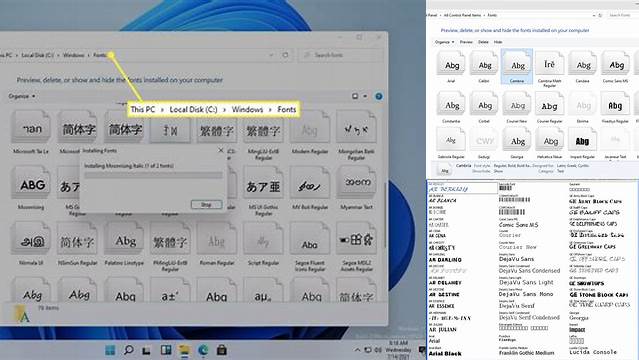
Download Fonts For Windows: The Ultimate Guide
Windows fonts download are essential for anyone looking to personalize their computing experience or ensure compatibility across different documents and platforms. Fonts play a crucial role in the visual appeal and readability of text, making them a fundamental element of graphic design and document creation. In this comprehensive guide, we'll explore everything you need to know about downloading and managing fonts on Windows, from understanding font types to troubleshooting common issues. Guys, whether you're a seasoned designer or just someone who wants to spice up their documents, this guide has got you covered. We will dive deep into the world of fonts, making sure you have all the knowledge you need to find, install, and use the perfect fonts for your needs. This includes a detailed look at where to find reputable font sources, how to install fonts correctly, and even some tips on font management to keep your system running smoothly. So, buckle up and get ready to transform your text from bland to grand!
Fonts, in essence, are the visual representation of text. They determine the style and form of characters, influencing how we perceive written communication. Different fonts evoke different feelings and can significantly impact the overall aesthetic of a document or design. For instance, a formal document might benefit from a classic serif font like Times New Roman, while a creative project could utilize a more modern sans-serif font like Arial or a decorative script font. The right font can enhance readability, convey the intended message, and make your work stand out. However, managing fonts effectively is key to a seamless user experience. Downloading fonts from untrusted sources can expose your system to security risks, and installing too many fonts can slow down your computer. Therefore, understanding best practices for font management is crucial. We’ll walk you through identifying trustworthy sources, safely installing fonts, and organizing your font library for optimal performance. Plus, we'll cover some common issues you might encounter, like font conflicts or missing fonts, and provide you with practical solutions to resolve them. Let's make sure you are well-equipped to handle anything the font world throws your way!
Understanding Font Types
Before we jump into the process of Windows fonts download, it's essential to understand the different types of fonts available. Each font type has its unique characteristics and uses. Knowing the distinctions will help you choose the right fonts for your projects. The most common font types include TrueType, OpenType, and PostScript. TrueType fonts, developed by Apple and Microsoft in the late 1980s, were designed to provide better scalability and clarity compared to earlier font technologies. They are widely supported across various operating systems and applications, making them a reliable choice for general use. OpenType fonts, a more advanced format, build upon TrueType and add features like broader character sets, improved language support, and sophisticated typographic options. OpenType fonts can contain thousands of characters, including ligatures, swashes, and alternate glyphs, offering designers greater flexibility and control. PostScript fonts, also known as Type 1 fonts, were initially developed by Adobe for professional printing. While they are still used in the printing industry, they have largely been superseded by OpenType fonts due to the latter's versatility and cross-platform compatibility. Understanding the strengths of each font type can guide you in making informed decisions. For instance, if you're working on a project that requires precise typography and extensive language support, OpenType fonts would be the ideal choice. For everyday use and general compatibility, TrueType fonts remain a solid option. And while PostScript fonts are less common in modern digital design, they still hold value in professional printing workflows. By familiarizing yourself with these font types, you’ll be better equipped to select the fonts that best suit your specific needs.
Another important aspect of font types is the distinction between serif and sans-serif fonts. Serif fonts have small decorative strokes, or serifs, at the ends of the characters. These fonts are often perceived as more traditional and formal, making them a popular choice for body text in books, newspapers, and academic documents. Common serif fonts include Times New Roman, Garamond, and Georgia. Sans-serif fonts, on the other hand, lack these decorative strokes, resulting in a cleaner, more modern appearance. They are frequently used for headings, titles, and digital content due to their readability on screens. Popular sans-serif fonts include Arial, Helvetica, and Calibri. The choice between serif and sans-serif fonts can significantly impact the overall tone and readability of your text. Serif fonts tend to guide the eye across the page, making them suitable for long passages of text. Sans-serif fonts, with their clean lines, are often preferred for shorter text blocks and digital interfaces. Experimenting with different font combinations can help you create visually appealing and effective designs. For example, pairing a serif font for body text with a sans-serif font for headings can create a balanced and professional look. Ultimately, the best font choice depends on the specific context and the message you want to convey. Understanding these nuances will enhance your ability to use fonts effectively in all your projects.
Another important aspect of font installation is managing font conflicts. Sometimes, you may have multiple versions of the same font installed on your system, which can lead to display issues or application errors. To avoid font conflicts, it's a good practice to remove any duplicate fonts before installing new ones. You can do this by opening the Fonts folder, identifying the duplicate fonts, and deleting them. Windows will prompt you to confirm the deletion, and it's recommended to restart your computer afterward to ensure the changes take effect. In some cases, you may want to install fonts temporarily for a specific project without adding them to your system permanently. Windows allows you to do this by opening the font file and clicking the "Install" button in the preview window. This will install the font for the current user session, and it will be removed when you restart your computer. This feature is useful for testing fonts or using them in temporary projects without cluttering your font library. Additionally, if you're working on a project that requires a specific font, you can embed the font in your document. This ensures that the font will be displayed correctly even if the recipient doesn't have the font installed on their system. Most word processing and design applications offer options for embedding fonts in documents, making it easy to share your work without font-related issues. By following these guidelines, you can ensure a smooth and efficient font installation process and avoid common pitfalls. So, go ahead, install those fonts, and start creating some awesome designs!
Managing Your Fonts
Effective font management is essential for maintaining a clean and organized system. Over time, you may accumulate a large number of fonts, which can slow down your computer and make it difficult to find the fonts you need. Therefore, it's important to develop a strategy for managing your fonts effectively. One of the first steps in font management is to regularly review your font library and remove any fonts that you no longer use. This can help reduce clutter and improve your system's performance. To uninstall a font, open the Fonts folder, right-click on the font, and select "Delete." Windows will prompt you to confirm the deletion, and the font will be removed from your system. Another useful technique for font management is to organize your fonts into folders. You can create folders within the Fonts folder to group fonts by type, style, or project. This makes it easier to find specific fonts and keep your font library organized. For example, you might create folders for serif fonts, sans-serif fonts, script fonts, and fonts used in specific projects. In addition to manual font management, there are several font management tools available that can help you streamline the process. These tools offer features like font activation, font preview, font organization, and font conflict resolution. Some popular font management tools include FontExplorer X Pro, Suitcase Fusion, and NexusFont. These tools can be particularly useful for designers and other professionals who work with a large number of fonts. Font activation is a key feature of many font management tools. It allows you to enable fonts only when you need them, rather than having all fonts loaded into memory all the time. This can significantly improve your system's performance and reduce application startup times. Font management tools also provide advanced font preview capabilities, allowing you to see how a font looks in different sizes and styles before using it in your project. This can save you time and effort by helping you quickly identify the right font for your needs.
Furthermore, font management tools often include features for resolving font conflicts. They can detect duplicate fonts and help you manage different versions of the same font. This is particularly important in collaborative environments where multiple designers may be working on the same project and using different font libraries. By using a font management tool, you can ensure that everyone is using the correct fonts and avoid compatibility issues. Another important aspect of font management is to back up your font library regularly. This will protect you from data loss in case of a system failure or other unforeseen events. You can back up your fonts by copying the Fonts folder to an external hard drive, a cloud storage service, or another location. It's also a good idea to keep a record of your font licenses, especially for commercial fonts. This will help you ensure that you're using the fonts in compliance with their licensing terms and avoid any legal issues. In conclusion, effective font management is crucial for maintaining a smooth and efficient workflow. By regularly reviewing your font library, organizing your fonts into folders, using font management tools, and backing up your fonts, you can keep your system running smoothly and ensure that you always have the right fonts at your fingertips. So, take the time to manage your fonts effectively, and you'll be rewarded with a more organized and productive design experience. Trust me, your future self will thank you for it!
Even with careful planning and management, you might encounter some common font issues. Knowing how to troubleshoot these problems can save you a lot of frustration. One of the most common issues is missing fonts. This can happen if you open a document that uses a font you don't have installed on your system. In this case, the application will typically substitute the missing font with a default font, which can change the appearance of your document. To resolve this issue, you'll need to install the missing font. If you know the name of the font, you can search for it online and download it from a reputable source. Alternatively, you can ask the document creator to provide you with the font file or embed the font in the document. Another common issue is font corruption. This can cause fonts to display incorrectly or prevent applications from opening properly. Font corruption can be caused by various factors, such as incomplete font downloads, software conflicts, or system errors. To fix font corruption, you can try reinstalling the font or using a font validation tool to identify and repair any errors. Windows includes a built-in font validation tool that you can access through the Fonts folder. Right-click on the font and select "Properties," then go to the "General" tab and click the "Validate Font" button. This will check the font for common errors and provide recommendations for resolving them. In some cases, font issues can be caused by conflicts between different fonts or font versions. This can happen if you have multiple versions of the same font installed on your system or if two fonts have conflicting names. To resolve font conflicts, you can try uninstalling the conflicting fonts or using a font management tool to disable or hide them.
Another potential issue is font rendering problems, where fonts appear blurry or distorted on your screen. This can be caused by various factors, such as incorrect display settings, outdated graphics drivers, or font compatibility issues. To troubleshoot font rendering problems, start by checking your display settings to ensure that your screen resolution is set correctly and that font smoothing is enabled. You can also try updating your graphics drivers to the latest version, as this can often improve font rendering performance. If you're still experiencing font rendering issues, you may need to adjust your ClearType settings. ClearType is a technology that enhances the readability of fonts on LCD screens by smoothing their edges. You can access ClearType settings in Windows by searching for "ClearType" in the Start menu and following the on-screen instructions. If none of these steps resolve the issue, it's possible that the font itself is causing the problem. Try using a different font or contacting the font vendor for support. In summary, troubleshooting font issues can be a bit of a detective game, but by following these steps, you can often identify and resolve the problem. Remember to always download fonts from reputable sources, manage your font library effectively, and keep your system up to date. With a little bit of troubleshooting know-how, you can ensure that your fonts look their best and your applications run smoothly. And if all else fails, don't be afraid to reach out for help from online forums or technical support. The font community is often very helpful and can provide valuable insights and solutions.
In conclusion, mastering Windows fonts download and management is essential for anyone who wants to create visually appealing and professional-looking documents and designs. We've covered a lot in this guide, from understanding different font types and finding reliable sources to downloading and installing fonts, managing your font library, and troubleshooting common issues. By following these tips and best practices, you can ensure that you have a smooth and efficient font workflow. Remember, fonts are a powerful tool for communication and expression. The right font can enhance readability, convey the intended message, and make your work stand out. But like any tool, fonts need to be used responsibly and managed effectively. This means choosing fonts that are appropriate for your project, respecting font licenses, and keeping your font library organized. It also means being aware of potential security risks and taking steps to protect your system from malware. By staying informed and proactive, you can enjoy the benefits of a wide variety of fonts without compromising your security or performance. And guys, don’t forget to have fun experimenting with different fonts and finding your own unique style! The world of typography is vast and exciting, with endless possibilities for creativity and expression. So, go ahead, download some new fonts, try out different combinations, and see what you can create. Whether you're designing a website, creating a presentation, or writing a document, the right fonts can make all the difference. So, embrace the power of typography and let your creativity flow!
Finally, remember that font management is an ongoing process. Your font library will likely grow and change over time, so it's important to stay organized and regularly review your fonts. This includes removing fonts that you no longer use, organizing your fonts into folders, and backing up your font library. It also means keeping up with the latest font technologies and trends. New font formats and styles are constantly being developed, so staying informed can help you stay ahead of the curve. By investing the time and effort to manage your fonts effectively, you'll be rewarded with a more streamlined workflow, improved system performance, and the ability to create stunning designs. So, take control of your fonts, unleash your creativity, and enjoy the journey of typography. With the knowledge and tools you've gained from this guide, you're well-equipped to navigate the world of fonts and make the most of this powerful design element. Happy fonting!